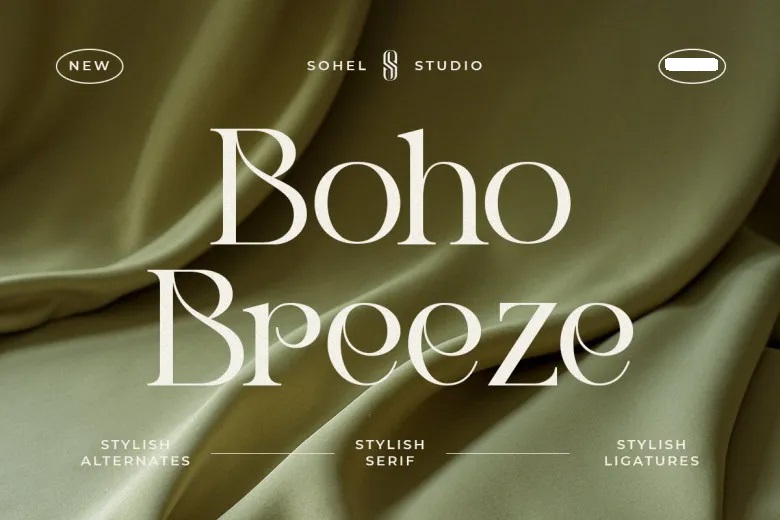
Boho Breeze Font
Boho Breeze is an elegant modern serif typeface with numerous options, support for multiple languages and perfect kerning – making it the ideal font to create elegant logos, elegant design for editorial magazines for women and fashion brands, cosmetics company promotions contemporary advertising style invitation cards art home decorations books cover titles special events tote bags T-shirts bags advertising and so forth.
Boho Breeze Serif Font